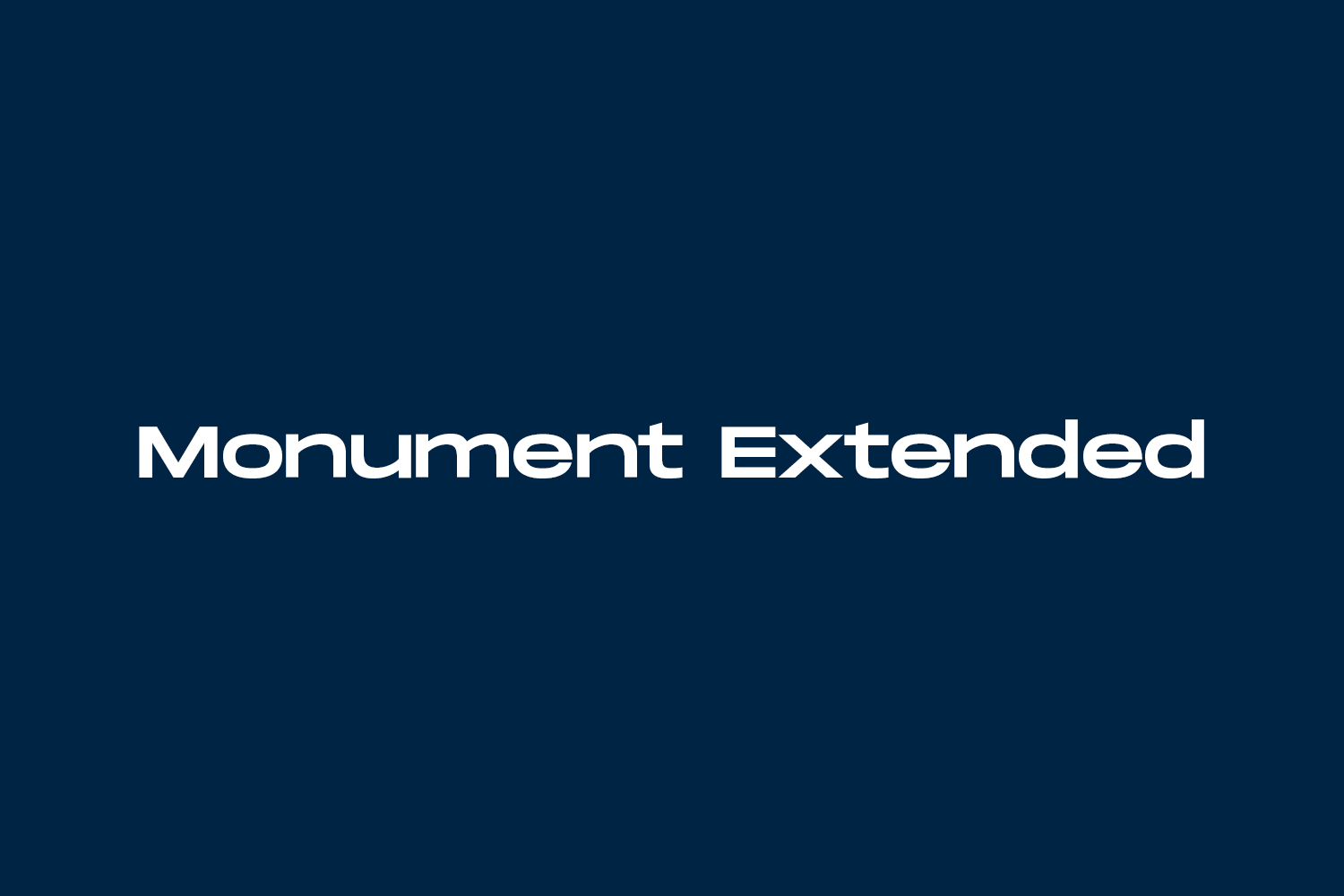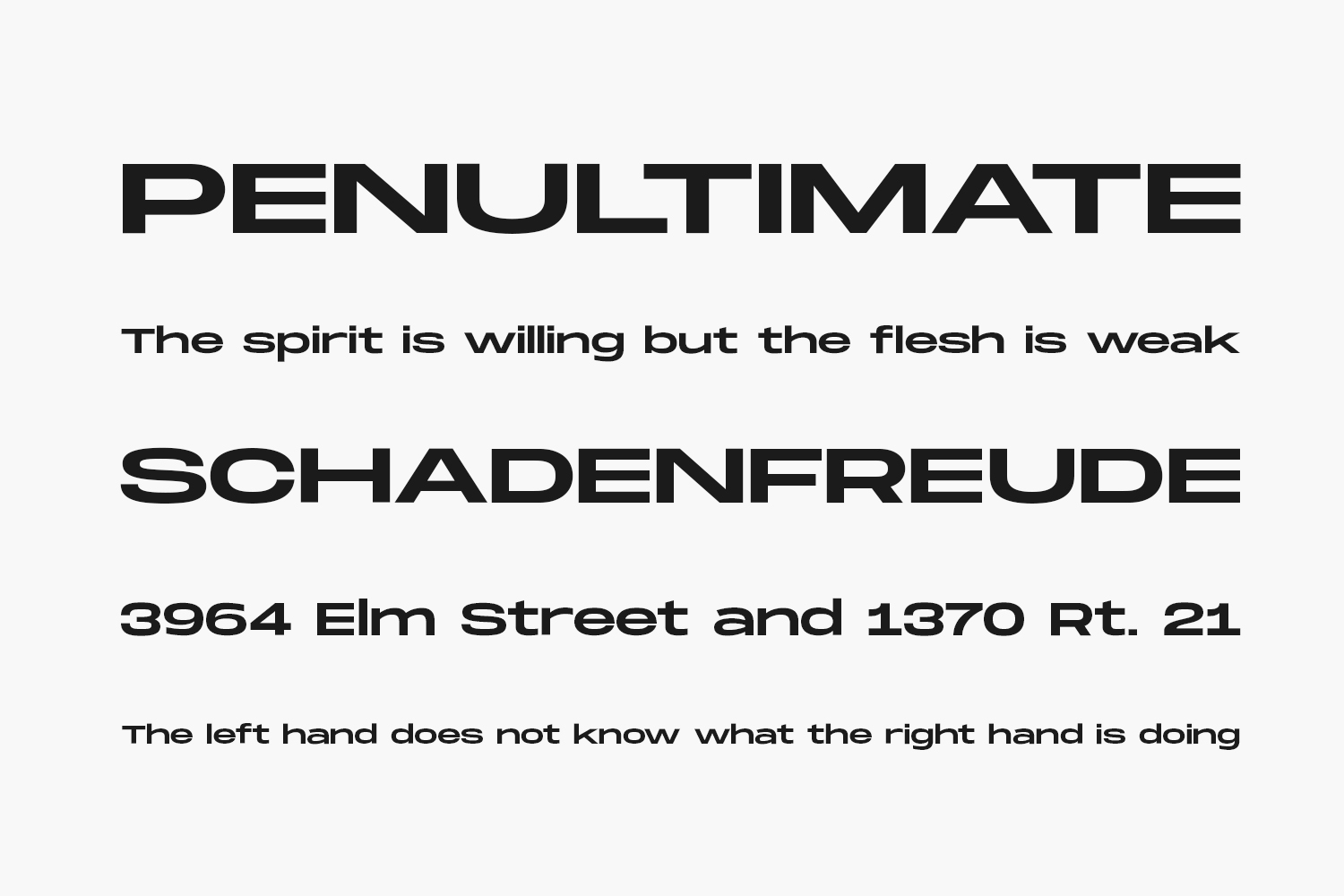
Monument Extended Free Font Family is a robust and versatile typeface of high quality that enhances your designs with extended characters. Ideal for making bold editorial statements, creating graphic-intensive prints, or crafting a distinctive logo, this font is sure to set your designs apart and make them truly unique. Download the font for free if you need it for personal use or purchase the full version for commercial use.
Designed by Mathieu Desjardins